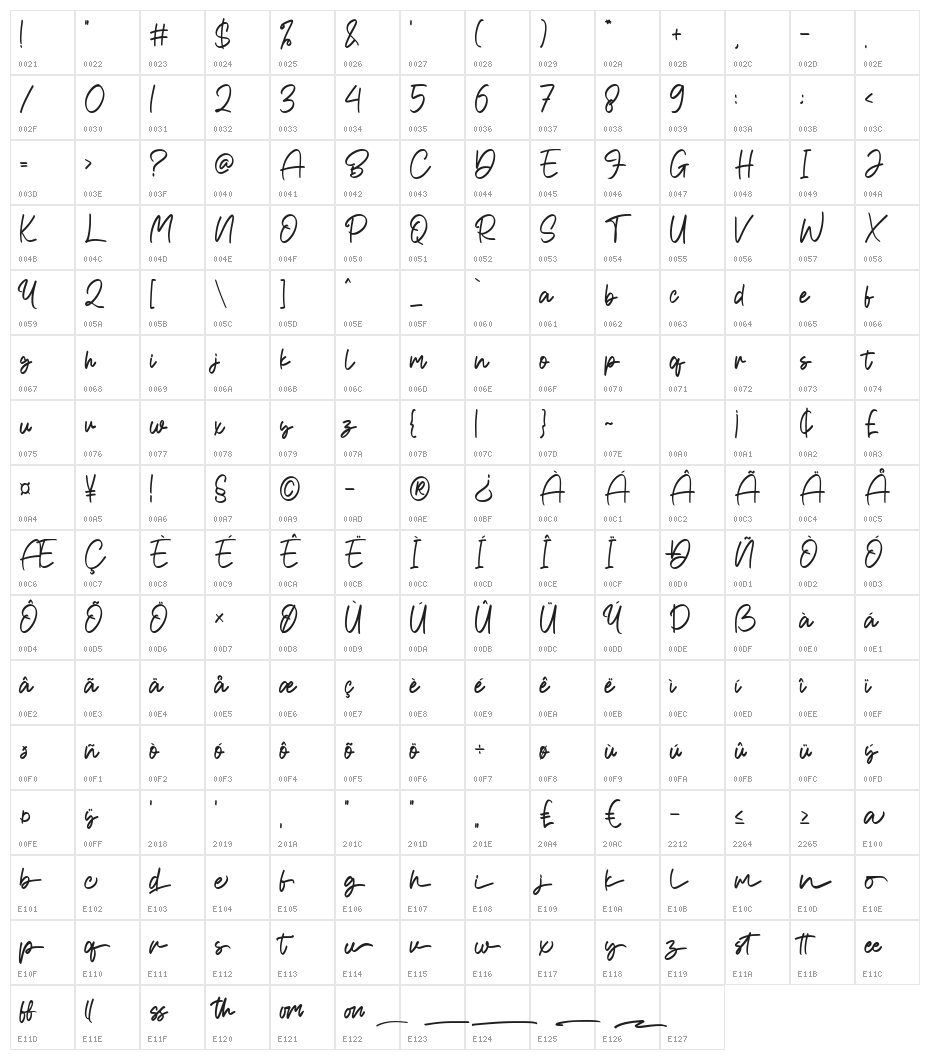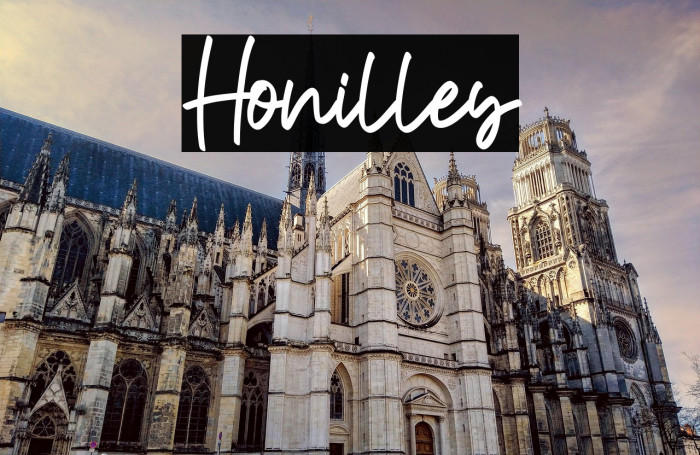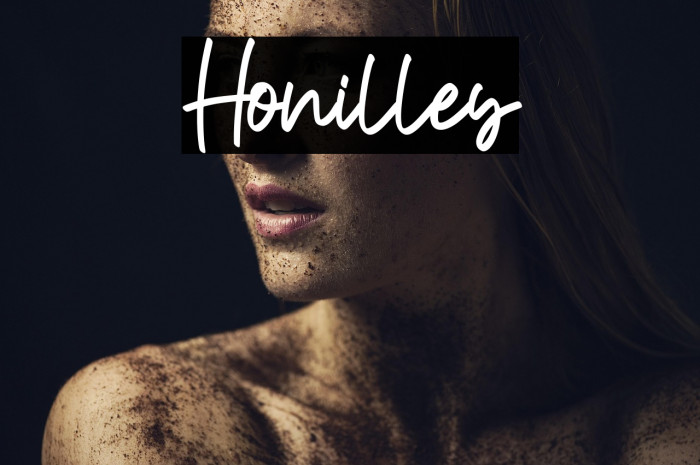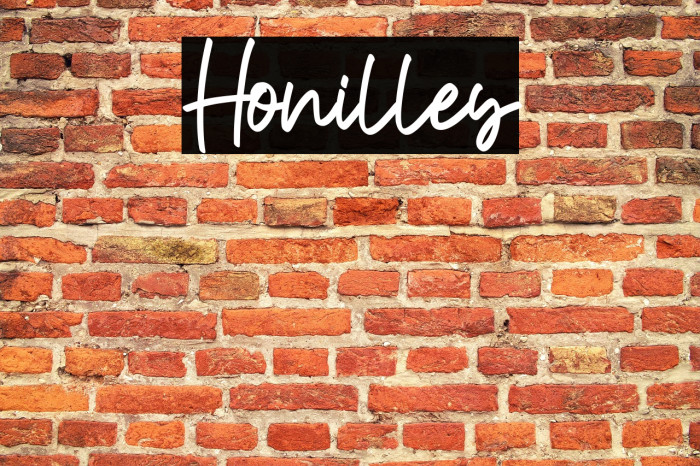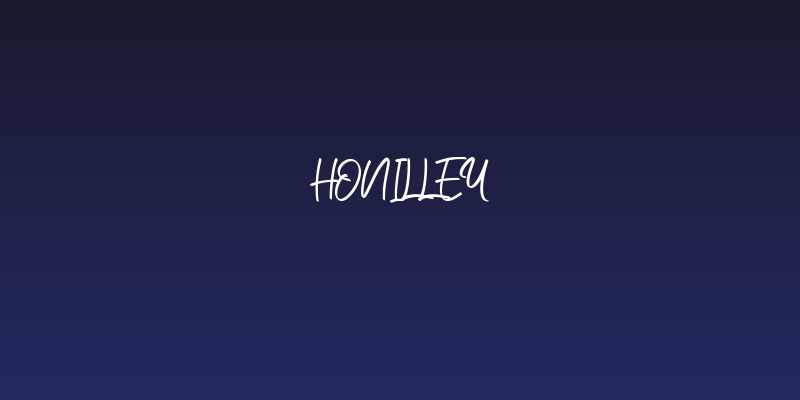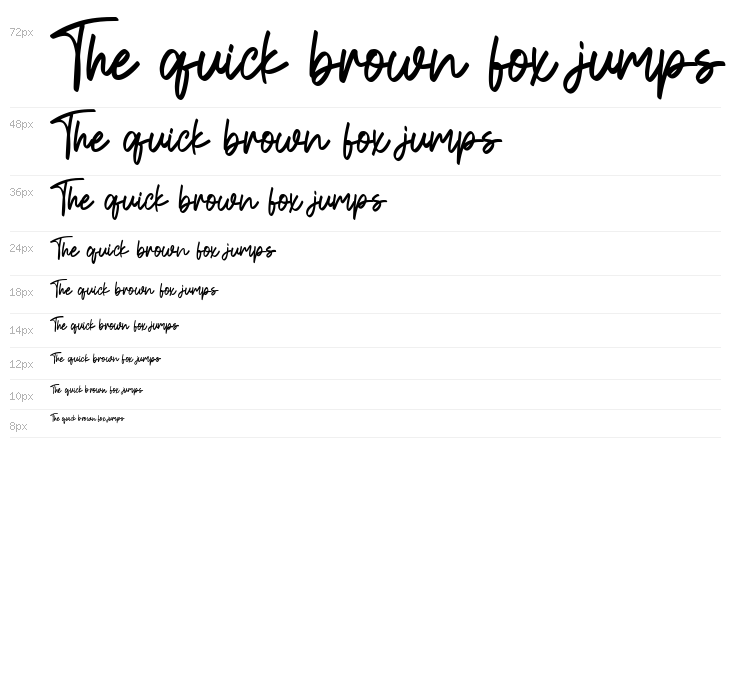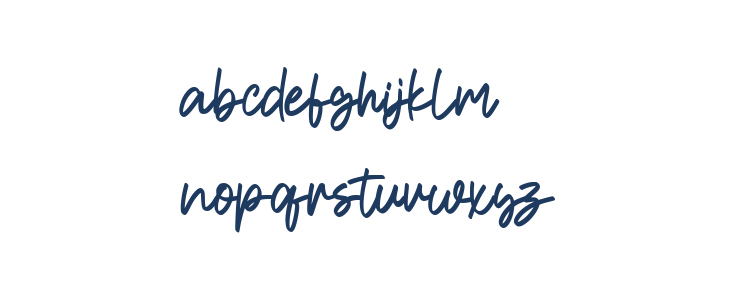
Honilley Font
Honilley Description
This font features a lively and flowing script style, characterized by its smooth, cursive strokes that mimic natural handwriting. The letters are connected, creating a seamless and elegant appearance. The uppercase letters are slightly larger and more pronounced, while the lowercase letters maintain a consistent flow. The numbers and special characters are crafted with the same fluidity, ensuring a cohesive look across all text. This font exudes a personal and approachable feel, making it ideal for projects that require a touch of personality and warmth.
| Use Case | Logos, Invitations, Personal Branding |
| Proposed Projects | Ideal for wedding invitations, personal branding, greeting cards, and social media graphics. |